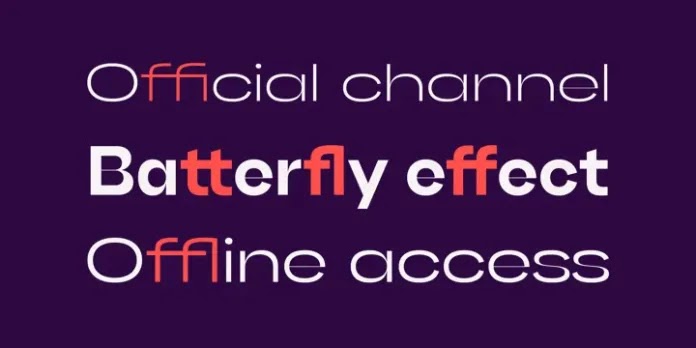
This is a new sans serif font from designer Slava Antipov. It is a modern and display typeface. It has 10 weights and 4 widths, for a total of 40 styles.